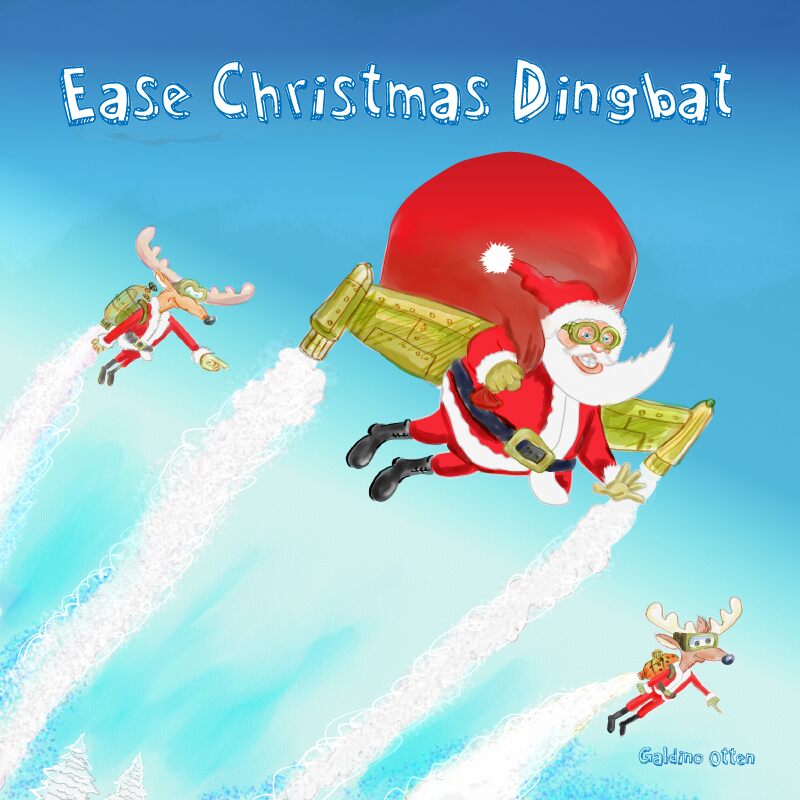
Ease Christmas
Ease Christmas by Galdino Otten Fonts brings a playful and festive flair to the dingbat font family. With its cartoon style, each character is crafted to embody the joy and whimsy of the holiday season. The font displays a series of charming icons that capture the essence of Christmas-ranging from frolicking reindeer and swirling snowflakes to jolly Santa faces and cheerful ornaments.
The artistic strokes and lively details make Ease Christmas not just a font but a collection of holiday illustrations that can enhance any seasonal project. Its aesthetic appeal lies in its ability to convey warmth and celebration through simple yet expressive symbols. Whether used for creating eye-catching Christmas cards, spirited event invitations, or engaging social media posts, this font adds a touch of merriment that is instantly recognizable.
Suitable for both digital media and print, Ease Christmas stands out for its versatility in various creative contexts. It's an excellent choice for those looking to sprinkle a bit of holiday magic on their designs while maintaining an air of fun and lightheartedness befitting the most wonderful time of the year.